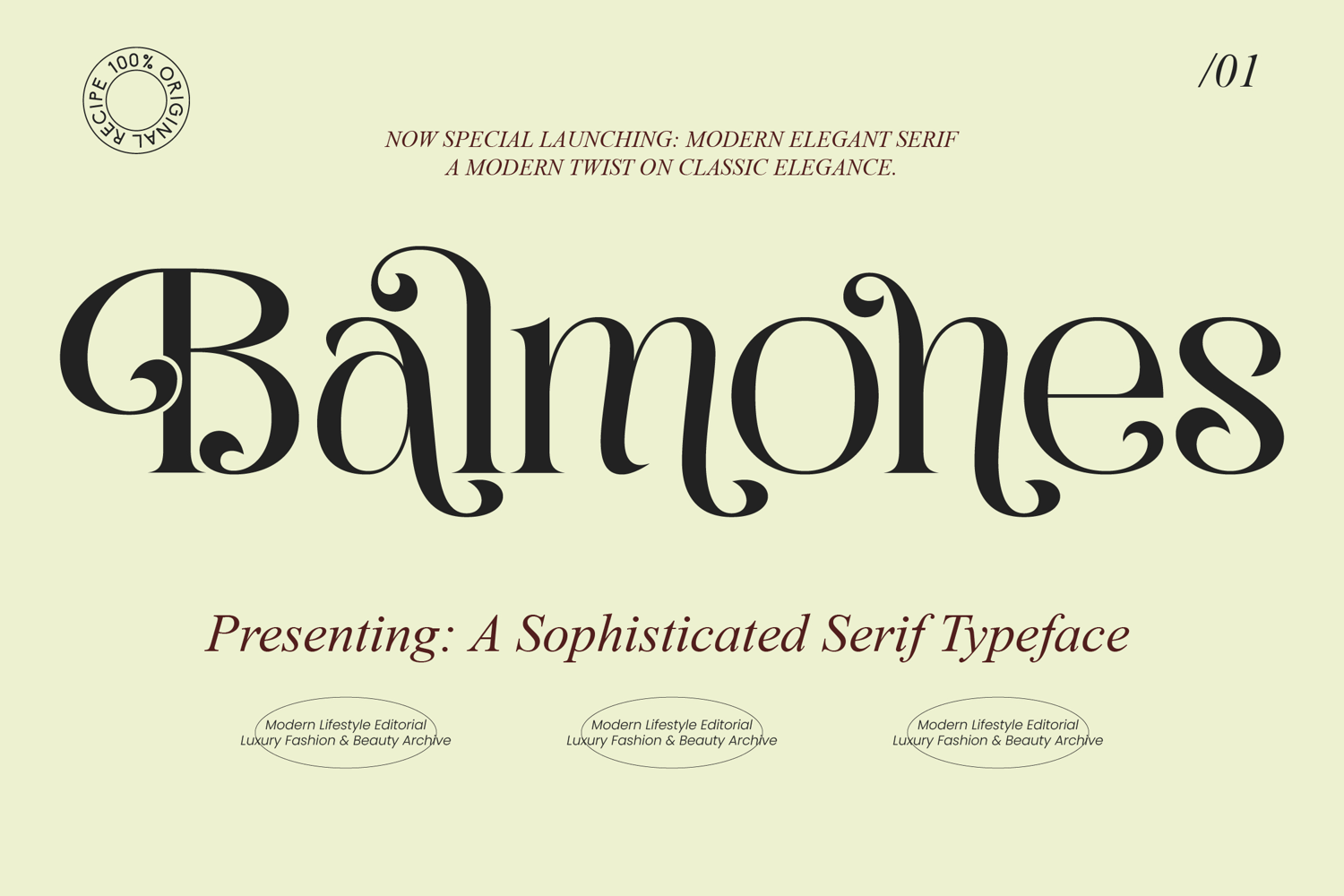
Balmones - Modern Elegant Serif
Elevate your visual identity with the unmatched sophistication of Balmones - Modern Elegant Serif, a typeface designed to redefine luxury. This sophisticated serif typeface masterfully blends traditional calligraphic elements with a modern aesthetic, ensuring your brand stands out in a crowded marketplace. By integrating fluid curves and sharp contrasts, it captures the essence of contemporary high-end design effortlessly.
Experience the striking personality of Balmones - Modern Elegant Serif, rooted in its exquisite letterforms and graceful swashes that command attention. Featuring high-contrast strokes and unique typographic details, this font offers a sense of rhythm and balance that is both classic and trendy. It is the perfect choice for designers seeking a timeless visual language that breathes life into minimalist and maximalist compositions alike.